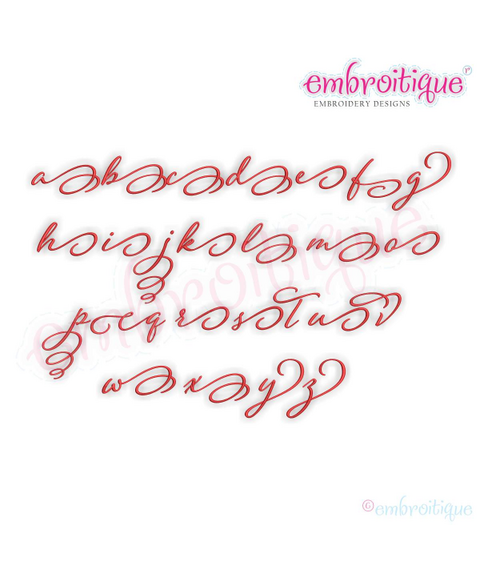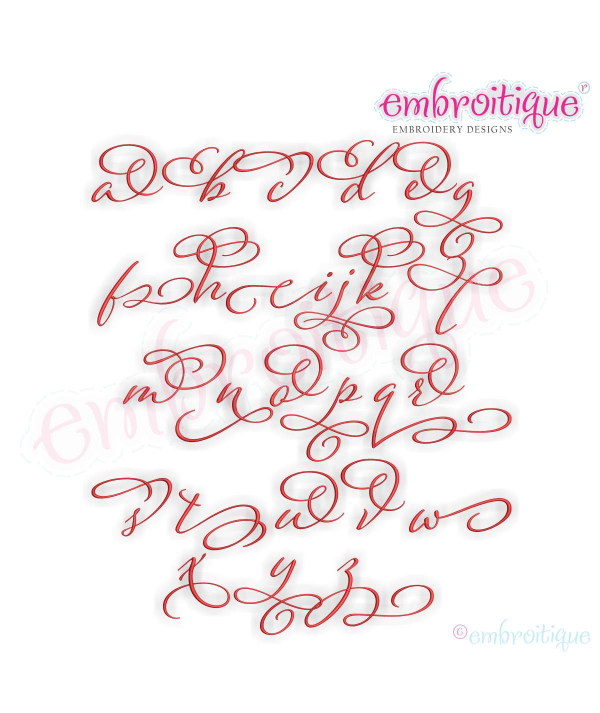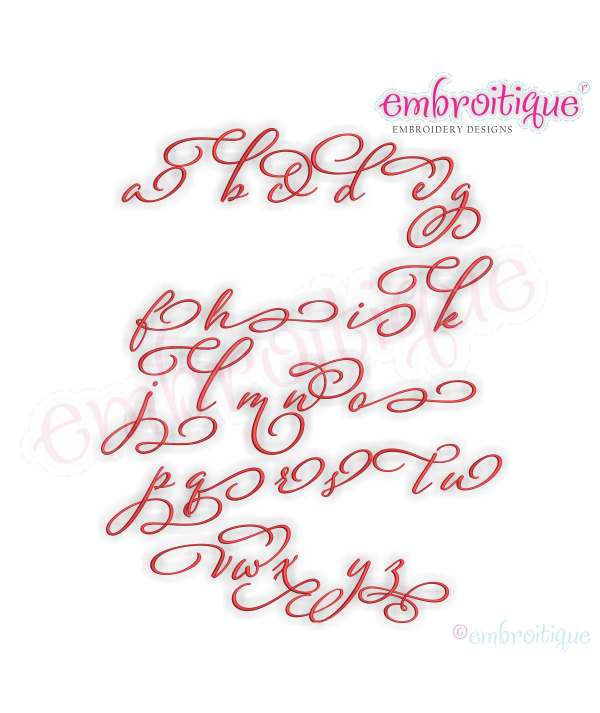
Eleanor Set 4 Lower case alternates - Small - Calligraphy Script Machine Embroidery Monogram Alphabet Font - Embroitique - BX Files included
this set contains the 3 sets of lowercase alternates designed to work with Eleanor Set 1 and Eleanor Set 2. Use all of these together to create stunning wornds, names and phrases.